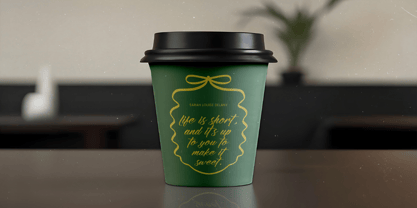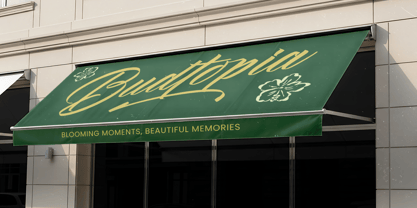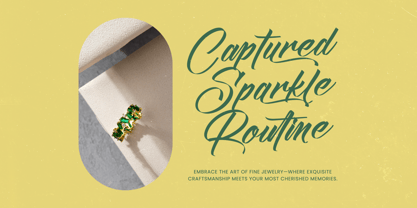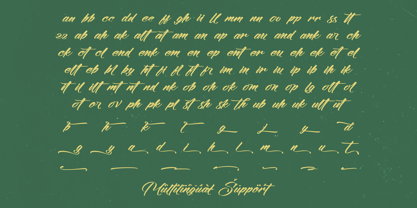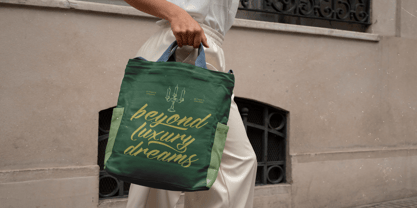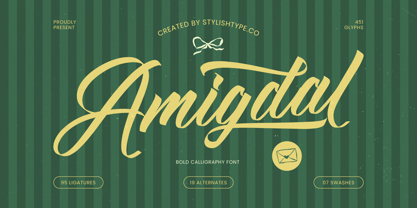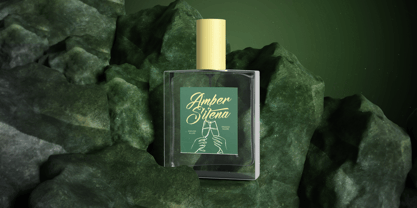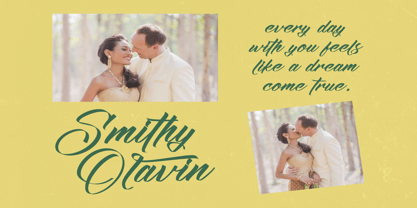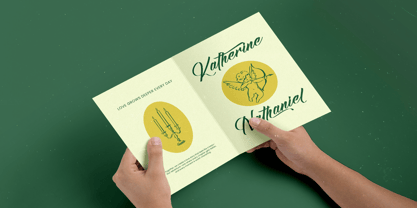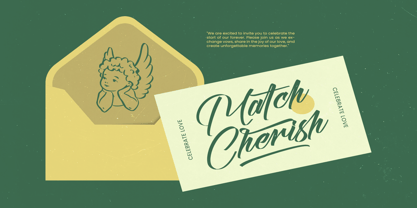
Amigdal Font
by Stylishtype Studio
The Amigdal Font Font Family was designed by Heru Utama Putra and published by Stylishtype Studio. Amigdal Font contains 2 styles and family package options. More about this family
Amigdal is a bold calligraphy font with a confident handwritten flow and a refined vintage touch. Its sweeping curves and expressive strokes make it perfect for branding, packaging, invitations, social media, and elegant logotypes. With 95 ligatures, 19 alternates, and 7 stylish swashes, this font gives you full creative flexibility to craft lettering that feels dynamic, personal, and polished. Ideal for designers seeking a bold script with charm, warmth, and a premium handcrafted look.